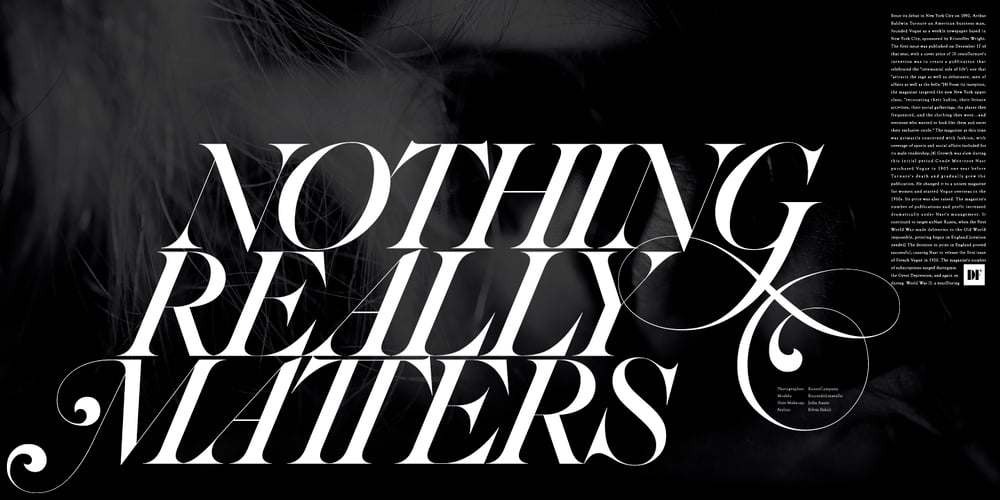
Ivy Ivy
Ivy Ivy font
Ivy Ivy Font Family was designed by Shin Oka and published by Daylight Fonts. Ivy Ivy contains 1 styles and family package options. This is a groundbreaking font that combines Caslon Italic and script. You can achieve an advanced typography that is elegant, delicate and powerful.